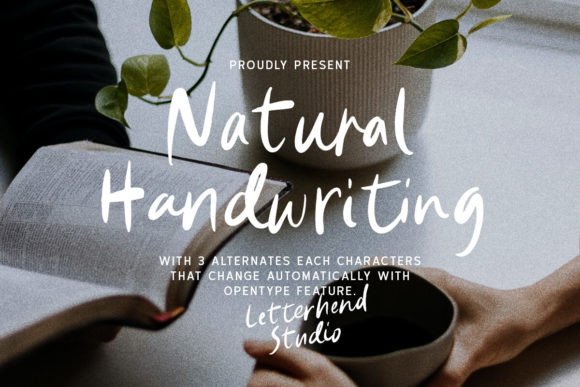
Natural Handwriting Font
Introducing Natural handwriting a casual font designed to bring a touch of authenticity to your projects. With its textured brush look, this font exudes an organic and intimate feel, allowing your designs to evoke a sense of uniqueness and character.